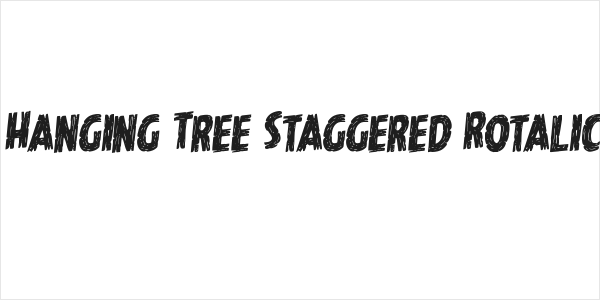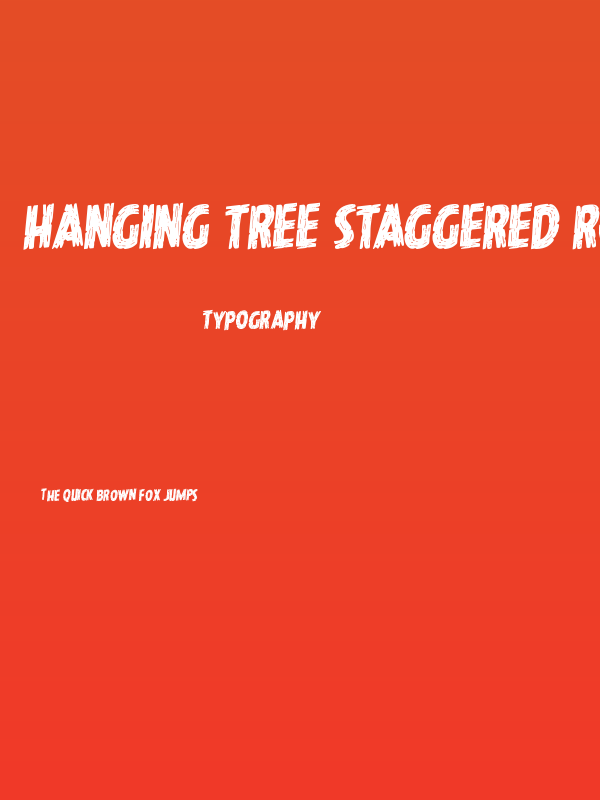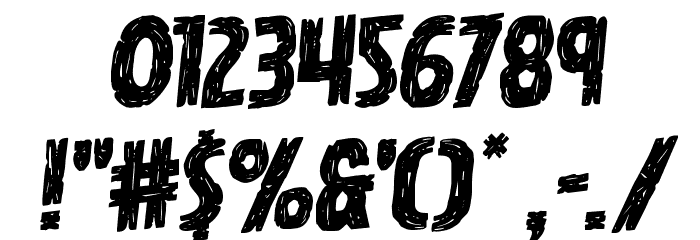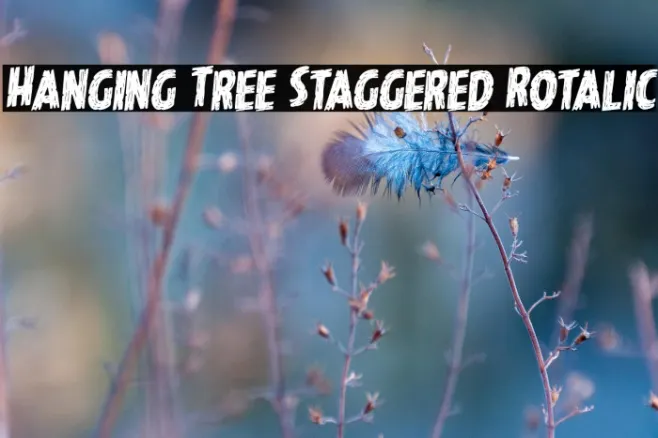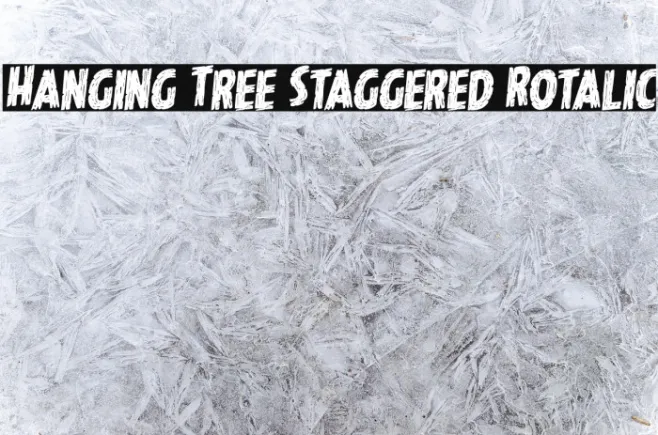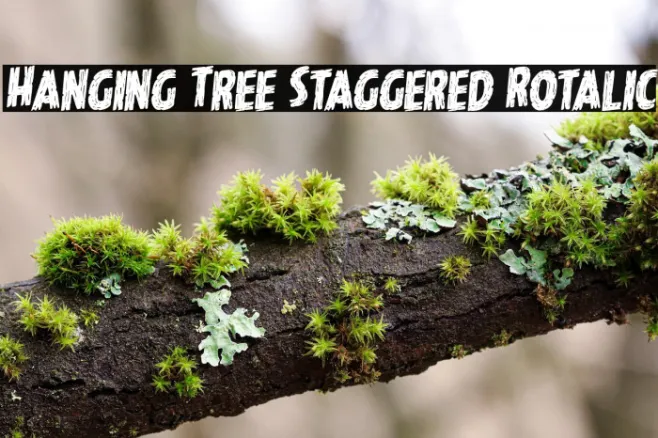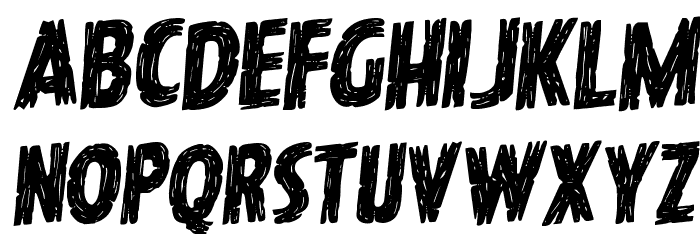
Hanging Tree Staggered Rotalic Font
Hanging Tree Staggered Rotalic Description
This font features a bold, hand-drawn style with a staggered, slightly chaotic appearance. The letters are thick and expressive, with a rough texture that gives them a dynamic, energetic feel. The uppercase and lowercase letters maintain a consistent style, with a slight slant that adds to the overall sense of movement. Numbers and special characters are equally bold and textured, ensuring a cohesive look across all elements. The font's unique, sketch-like quality makes it stand out, offering a sense of creativity and spontaneity.
| Proposed Projects | Ideal for projects that require a creative and energetic touch, such as posters, album covers, or branding for artistic ventures. |